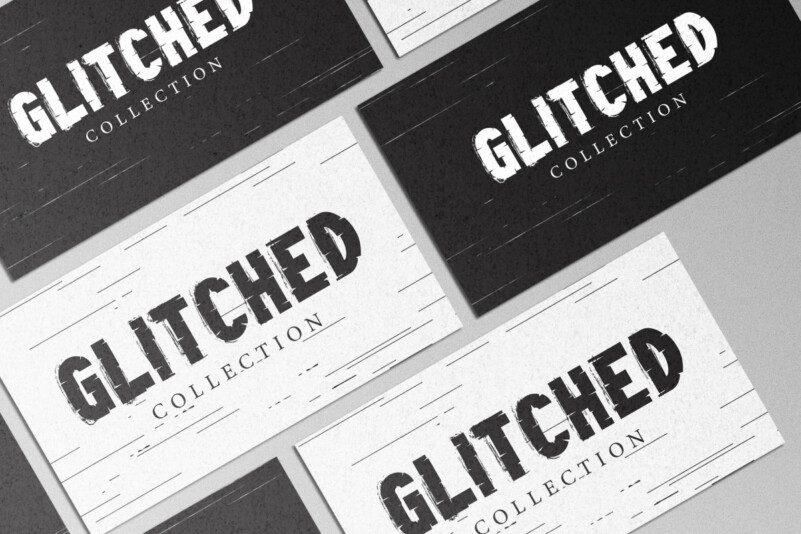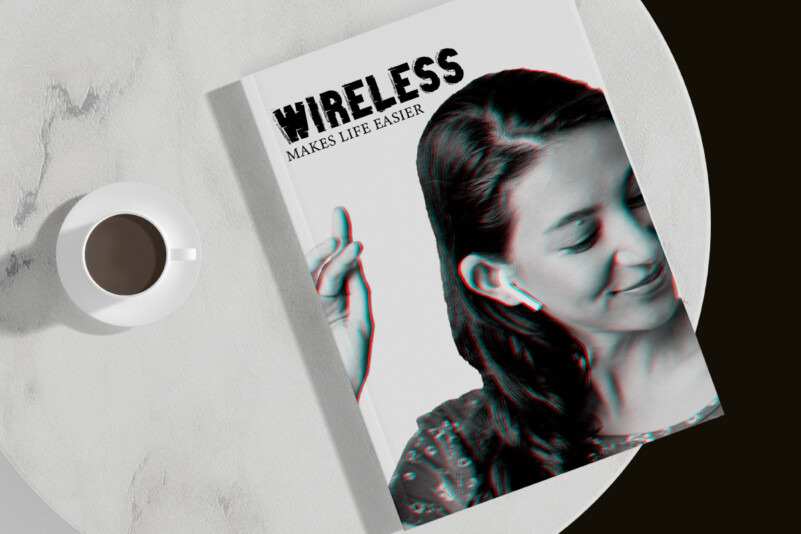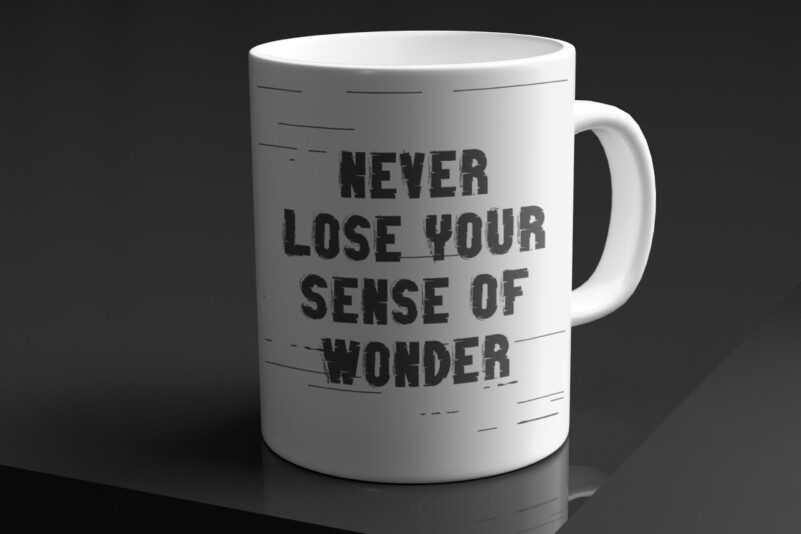
Glitch Code Font
Glitch Code Font is a techno sci-fi disco block display font designed by EdricStudio. This font has a glitch effect on each character that makes it stand out cool and suitable for any industry, including: accessories, barbershop, brand fashion, coffee palace, event or festival, fitness products, game, glassware, halloween party, handicraft, menswear, movie, music, photography, printing, publishing, sport, and many more.
Glitch Code Font comes with full set of ALL CAPS for both Uppercase and Lowercase Basic Characters, Number, a large range of Punctuation and Symbol. It has a stunning characters set, perfectly managed with well spaced and kerning. Glitch Code Font will be able to complement for any project (with extended license) including: billboard, brand logo, brochure, business card, cover, header, label, packaging design, poster, screen print, stationary, sticker, website, etc.